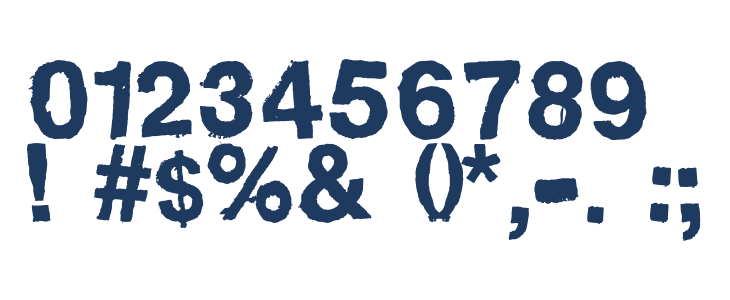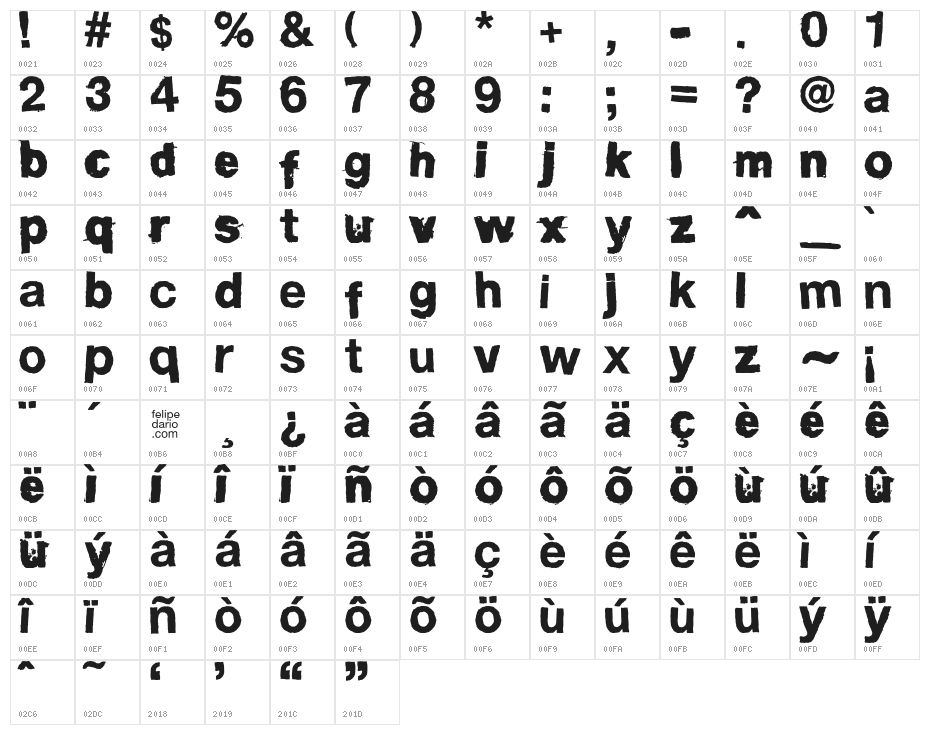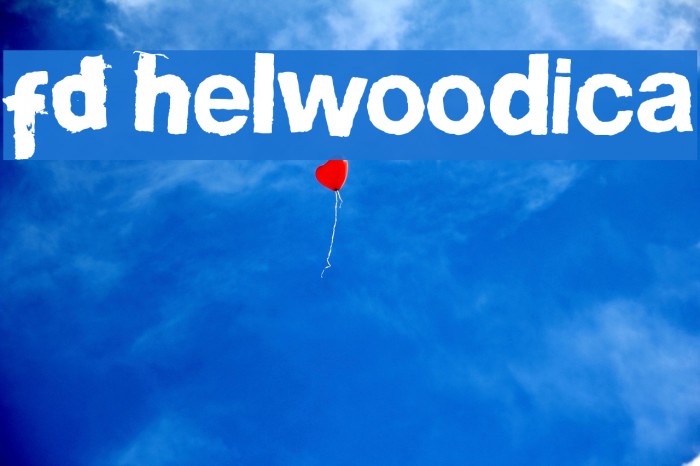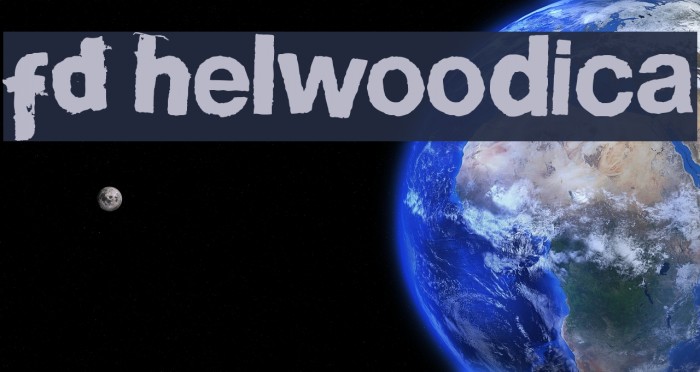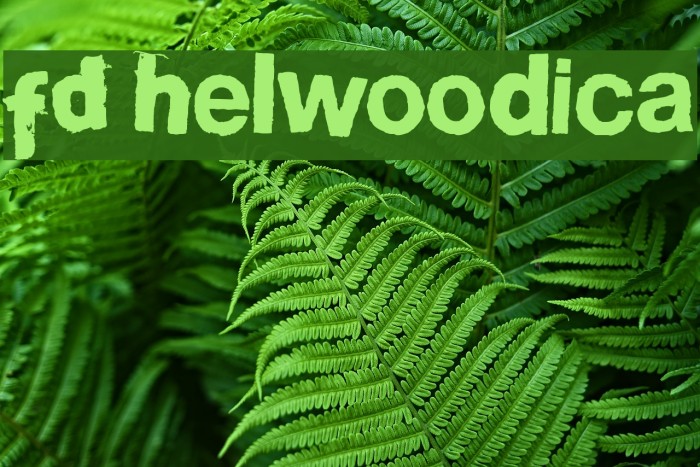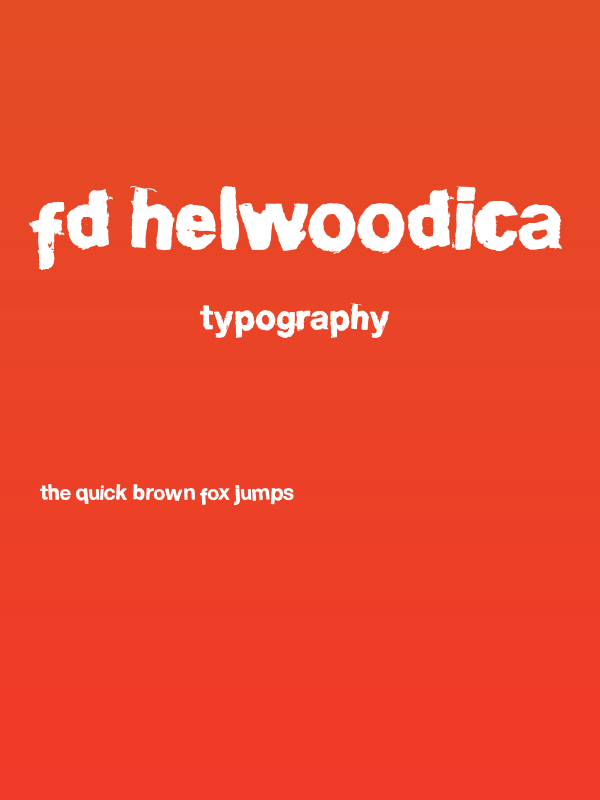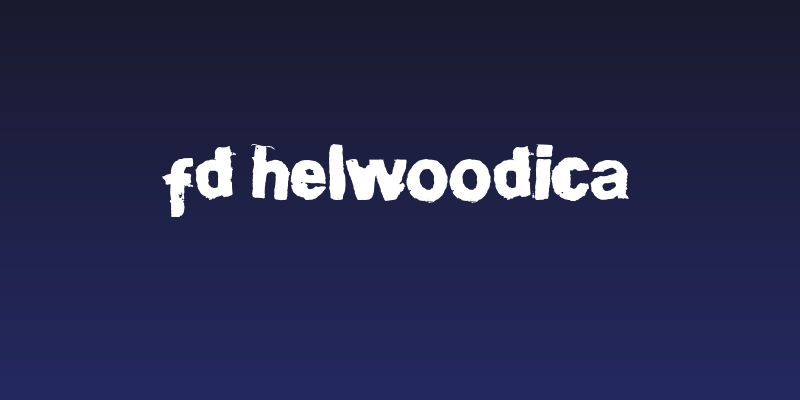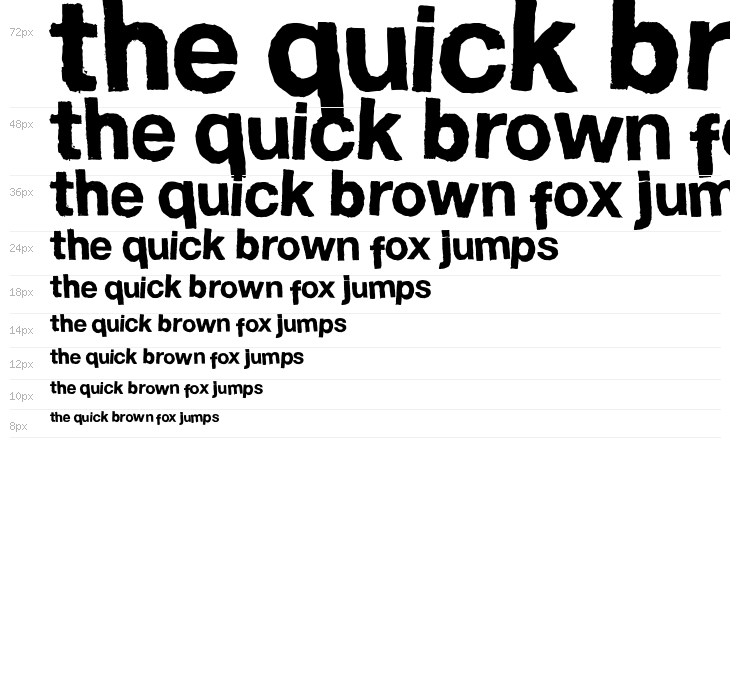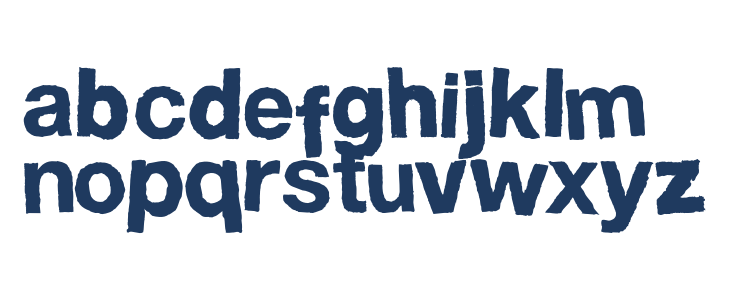
FD Helwoodica Font
FD Helwoodica Description
This font features a bold and rugged appearance, with a distinctly hand-crafted feel. The characters are thick and slightly irregular, giving them a textured and organic look. The edges are rough, adding to the font's rustic charm. The uppercase and lowercase letters maintain a consistent style, while the numerals and special characters complement the overall design. This font's unique style makes it stand out, perfect for projects that require a bold statement or an artistic touch.